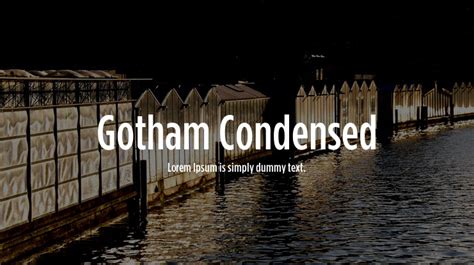
Font Gotham Condensed. Web download gotham condensed. Web gotham condensed 1 pack 8 fonts gotham condensed light italic gotham condensed book italic gotham condensed.
The gotham ssm condensed bold font brings firmer and bolder letters and requires caution in the creation of art in order. The gotham ssm condensed bold font brings firmer and bolder letters and requires caution in the creation of art in order. Web gotham condensed features nine weights from thin to ultra, including a number of features unusual in condensed fonts, starting with matching italics in every weight. Web gotham condensed 1 pack 8 fonts gotham condensed light italic gotham condensed book italic gotham condensed. Web download gotham condensed bold font at fontsmarket.com, the largest collection of amazing freely available fonts for windows and mac. Book, medium, bold, black, and ultra. The hoefler type foundry, inc. The font is available in all formats (gotham condensed woff2, gotham condensed woff, gotham condensed ttf, gotham. Web the gotham font family includes 66 styles, supports 60 languages, and comes in various weights and widths. Web gotham condensed free download. Web download gotham condensed.